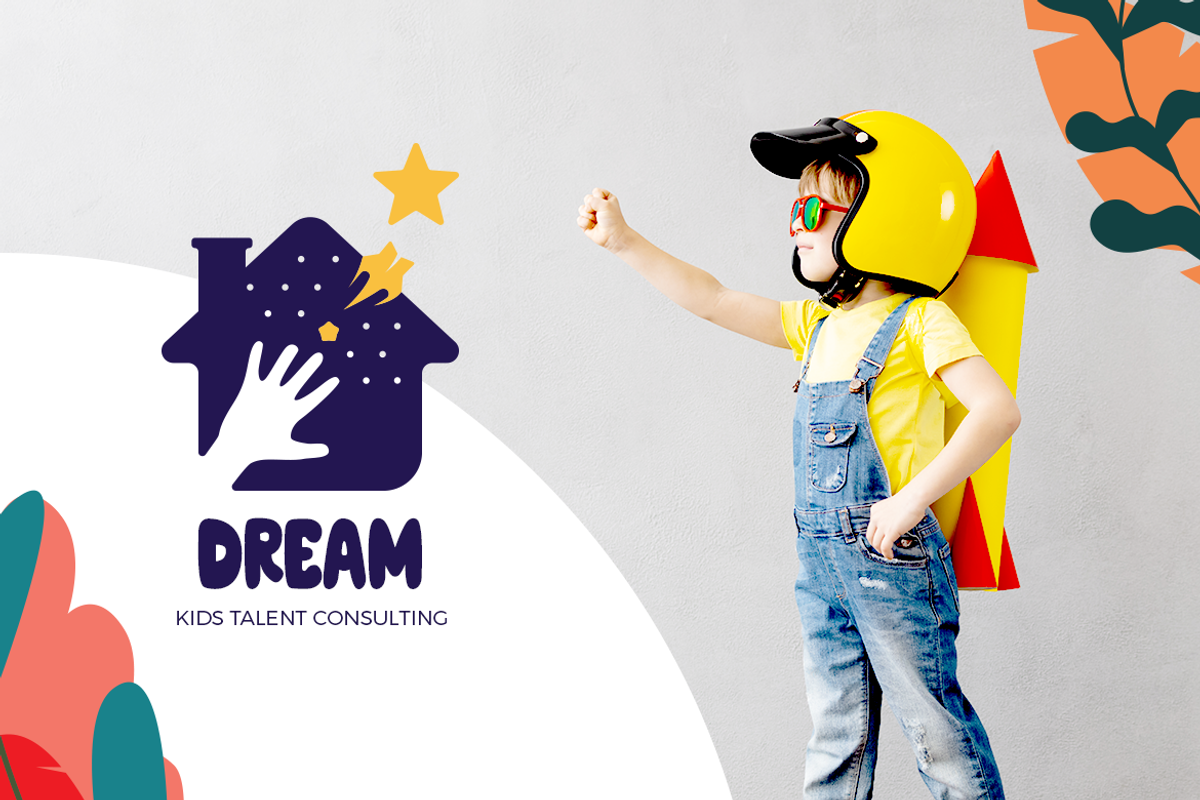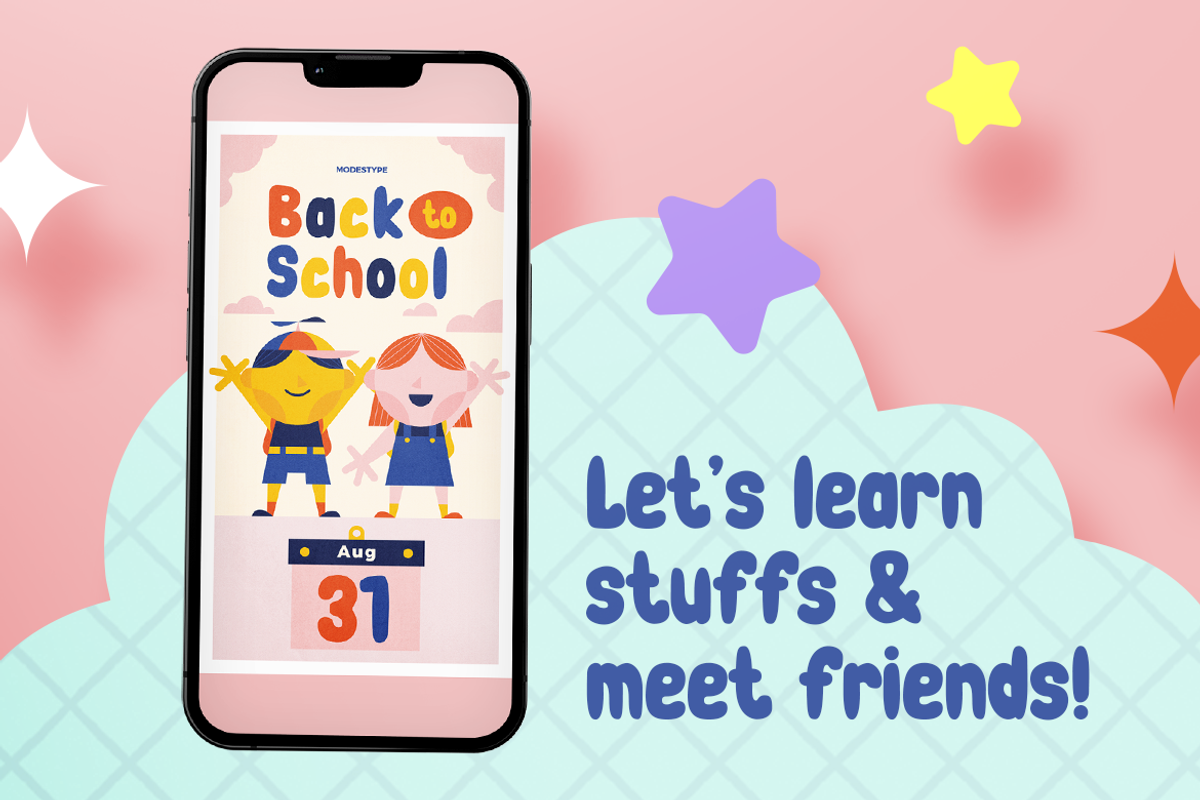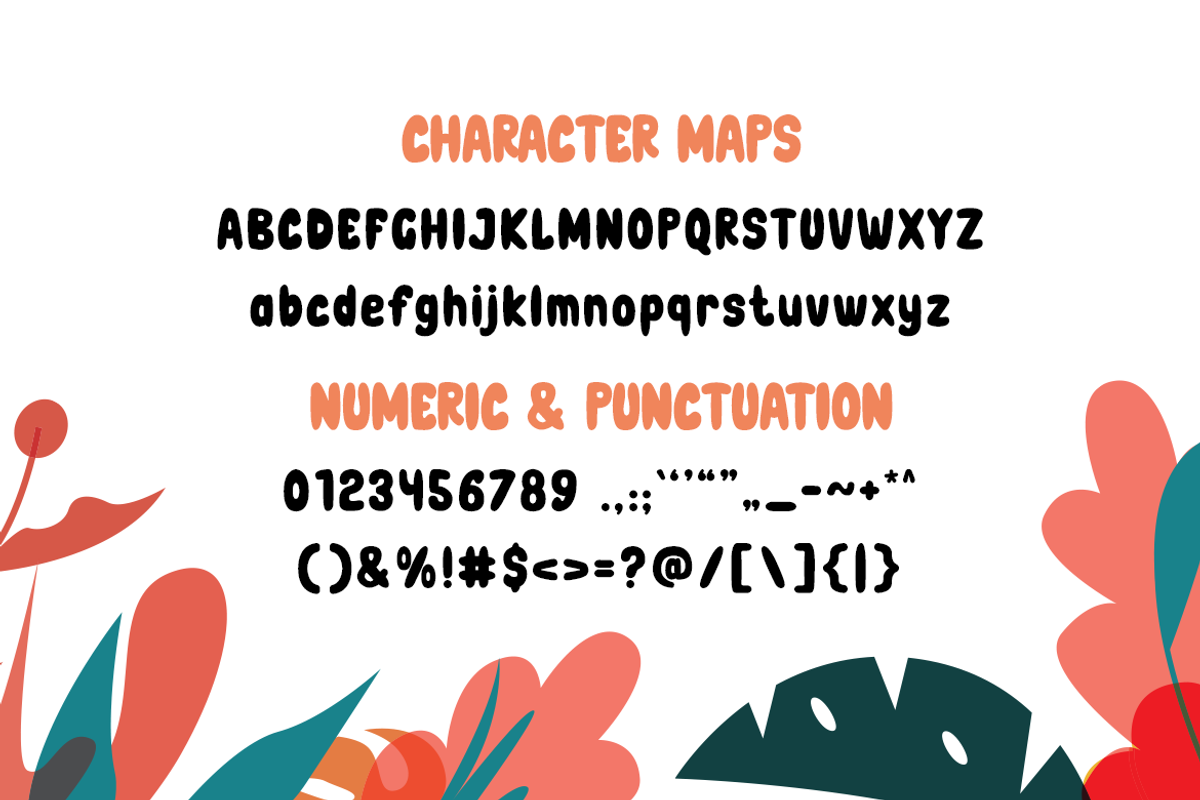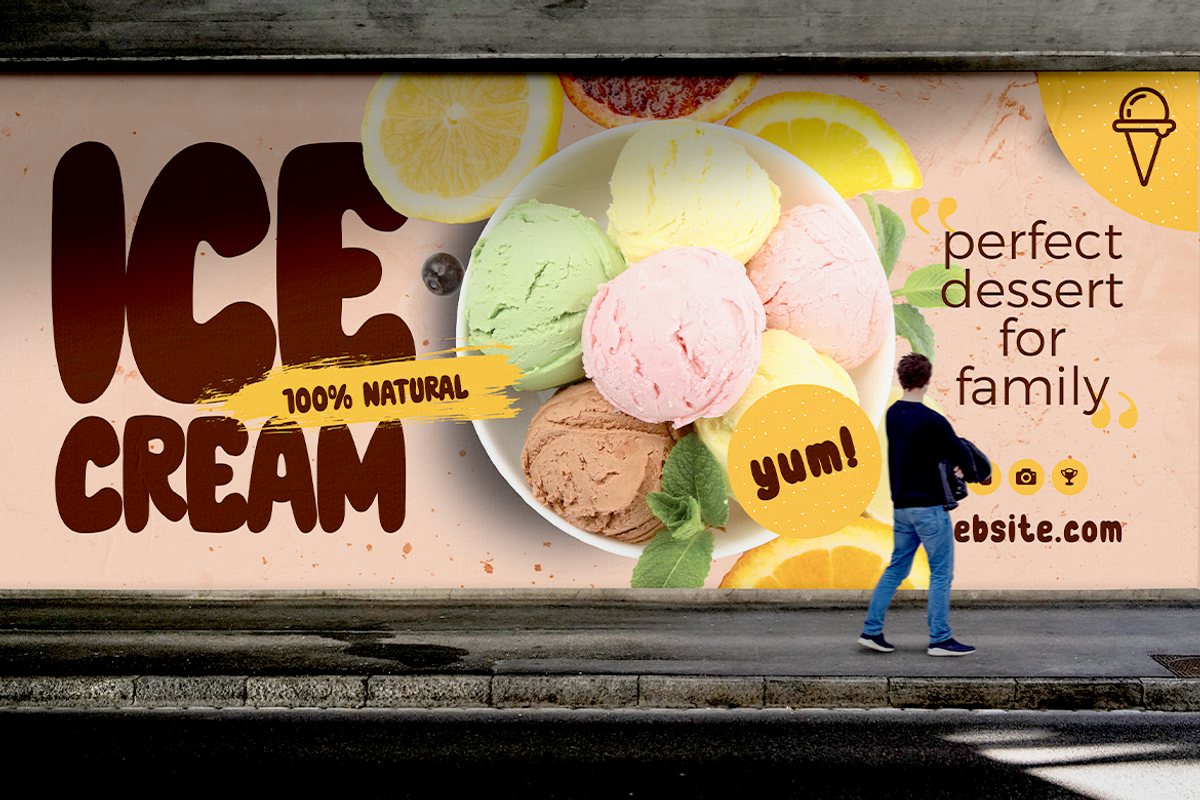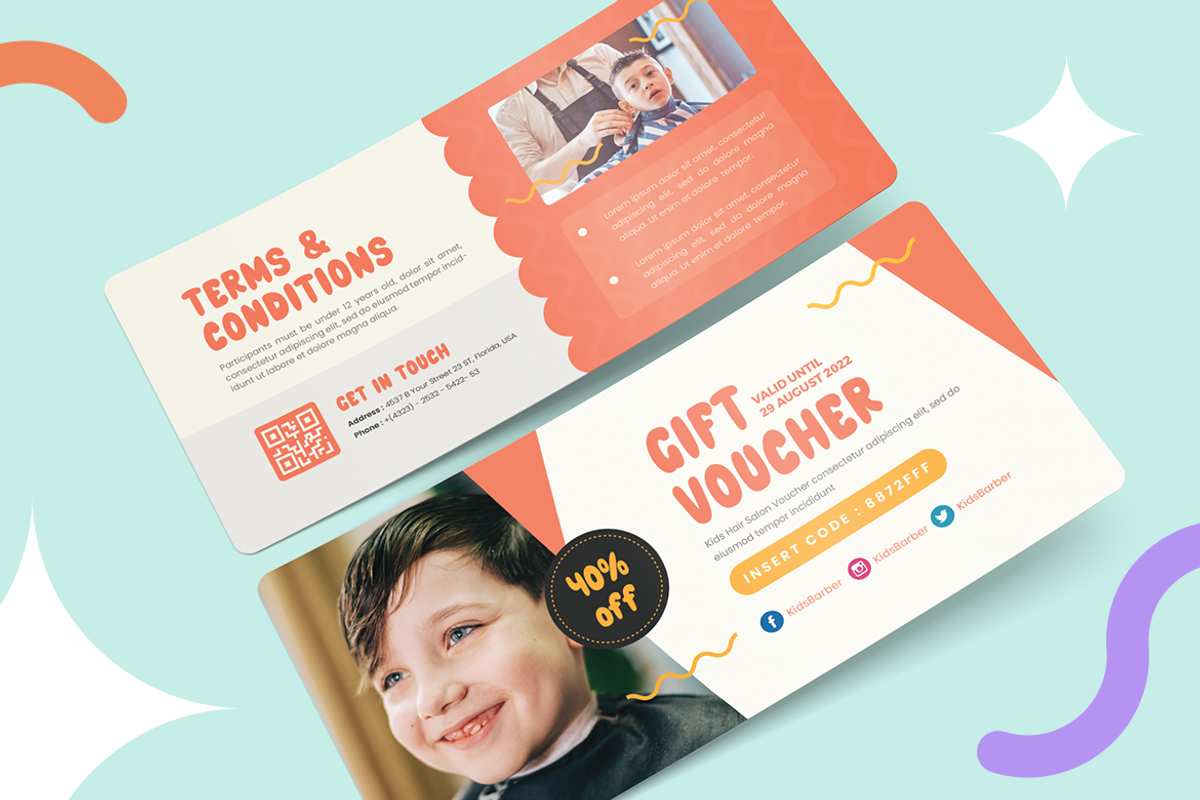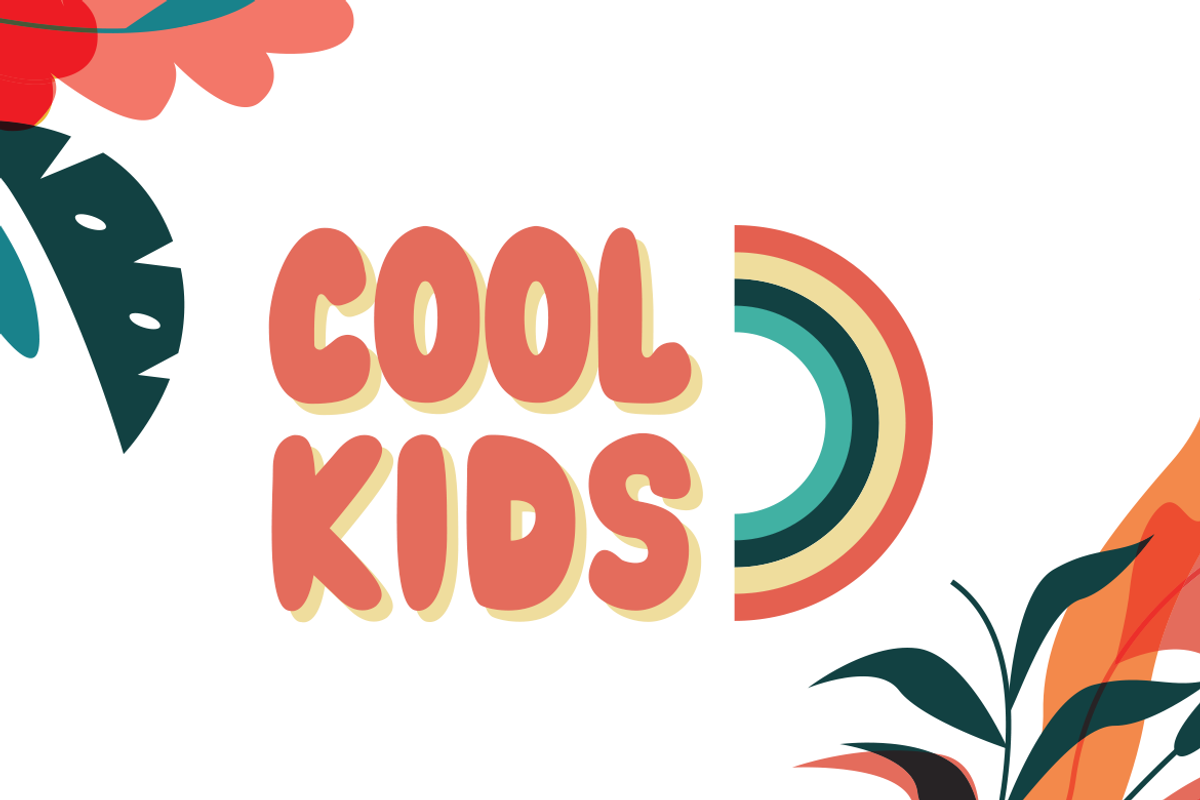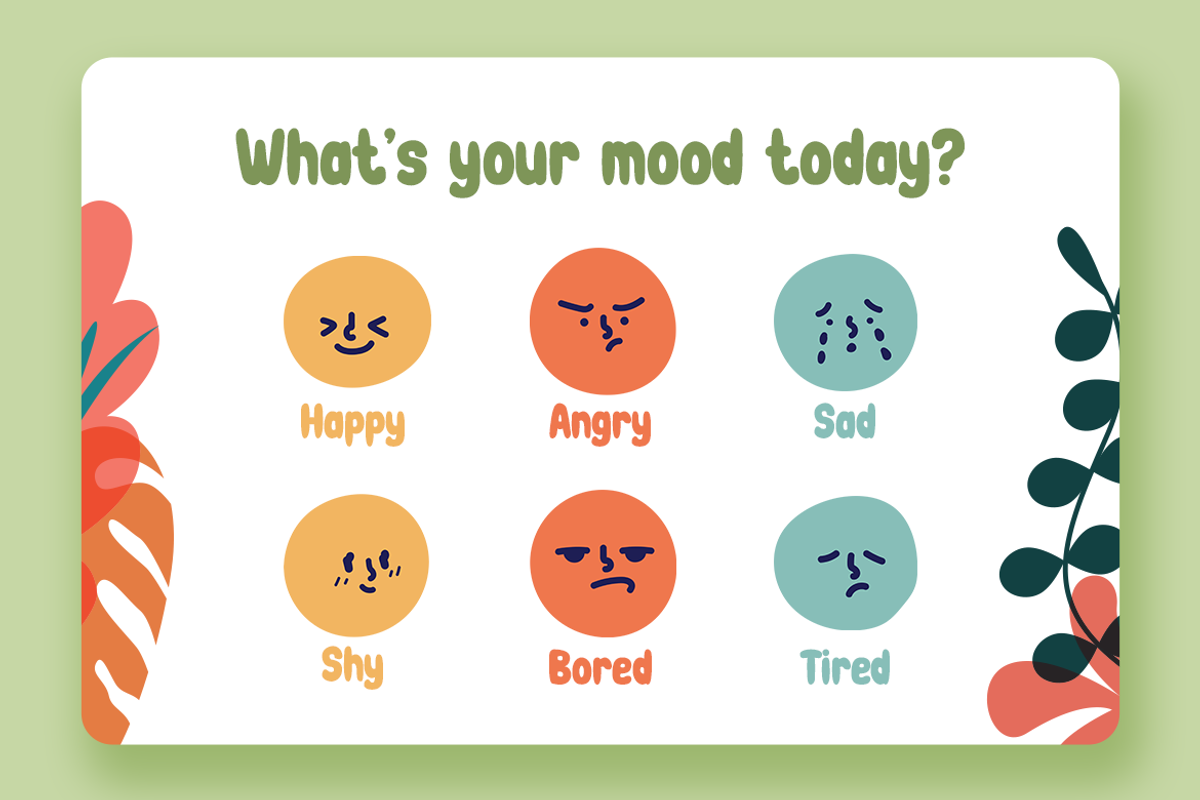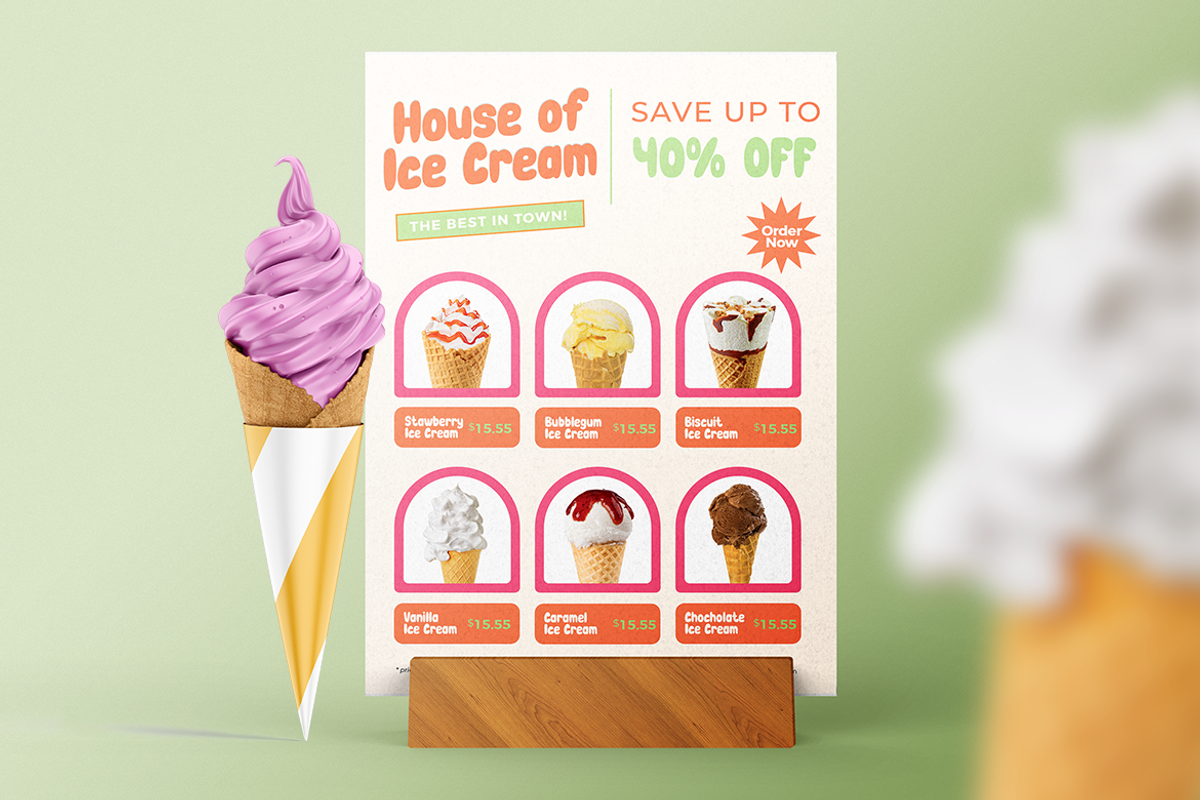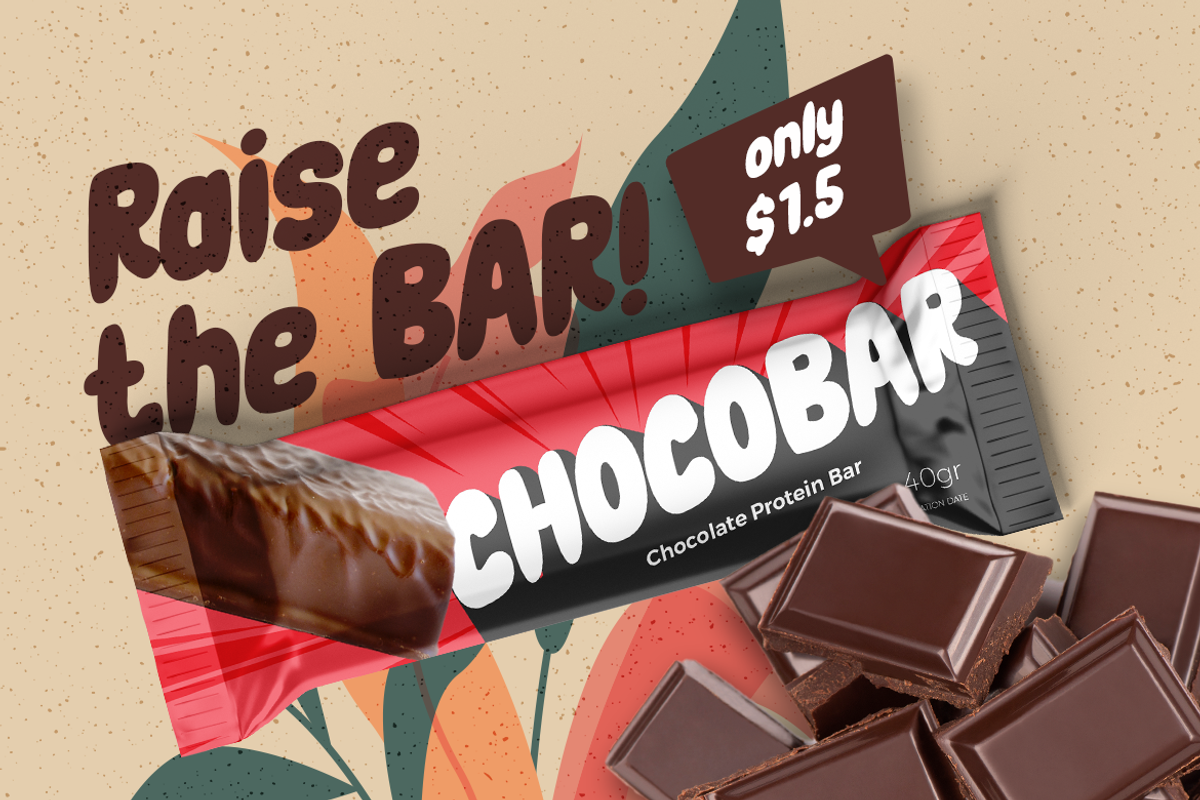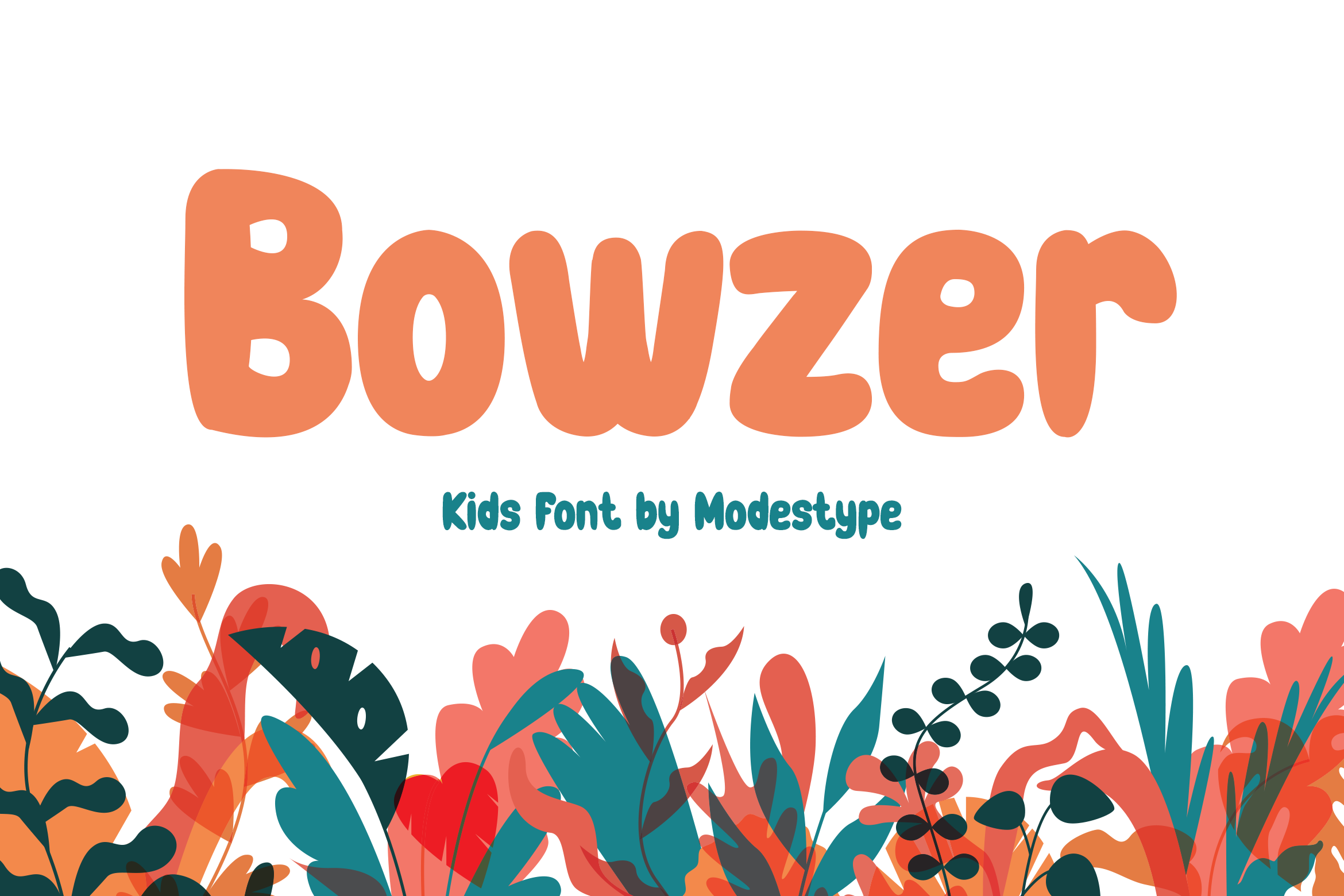
Bowzer - Playful Cartoon Font
Bowzer - Kids Font
Cute and friendly, with playful attitude. Bowzer will bring everything into the world of happiness. With rounded corner and a bit of up and down baseline, it will create a memorable moments for kids.
Suit perfectly for children books market, online games, stationary, school supplies font, poster, movie title, youtube covers, youtube thumbnails, social media page covers and so on...